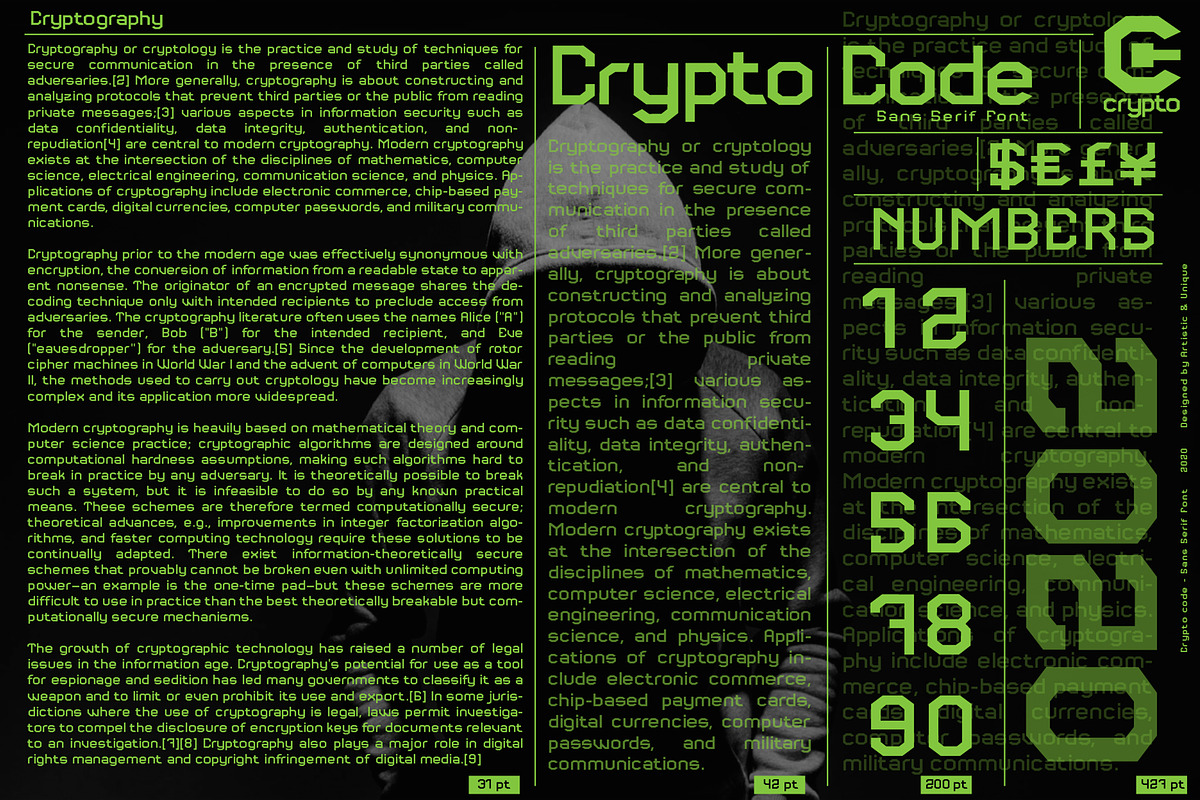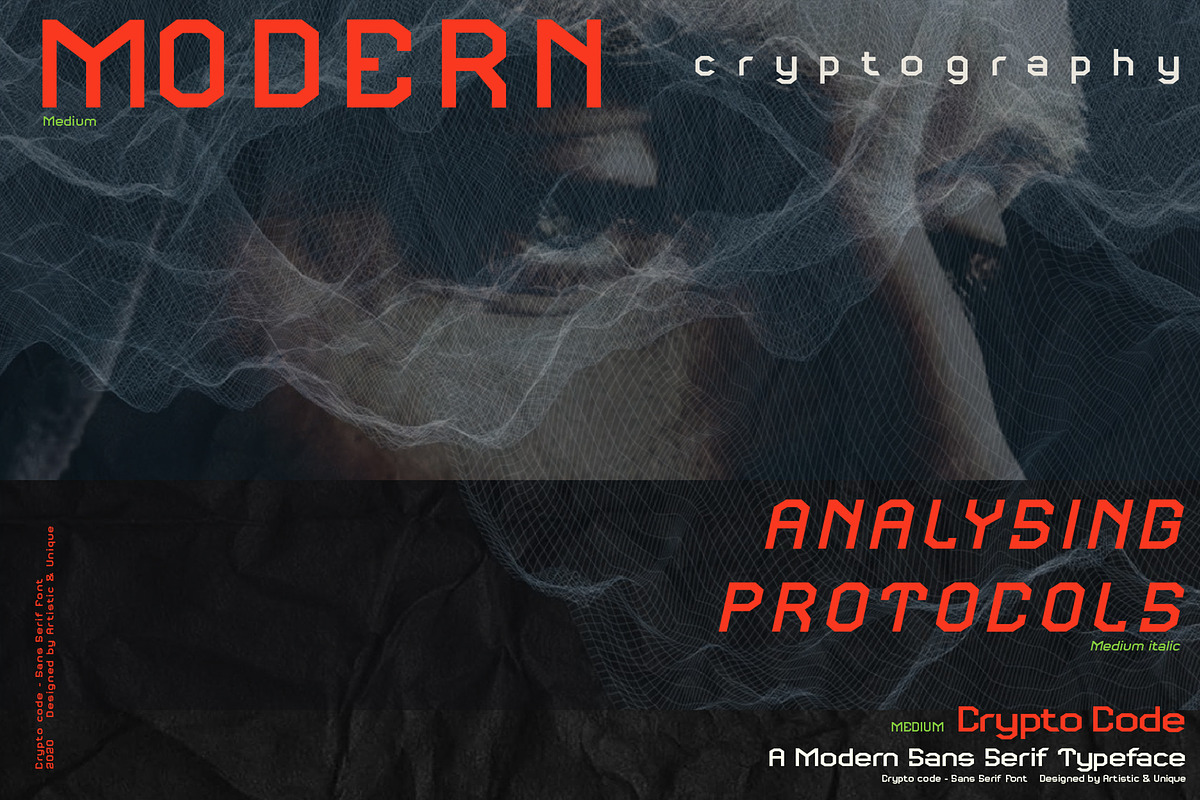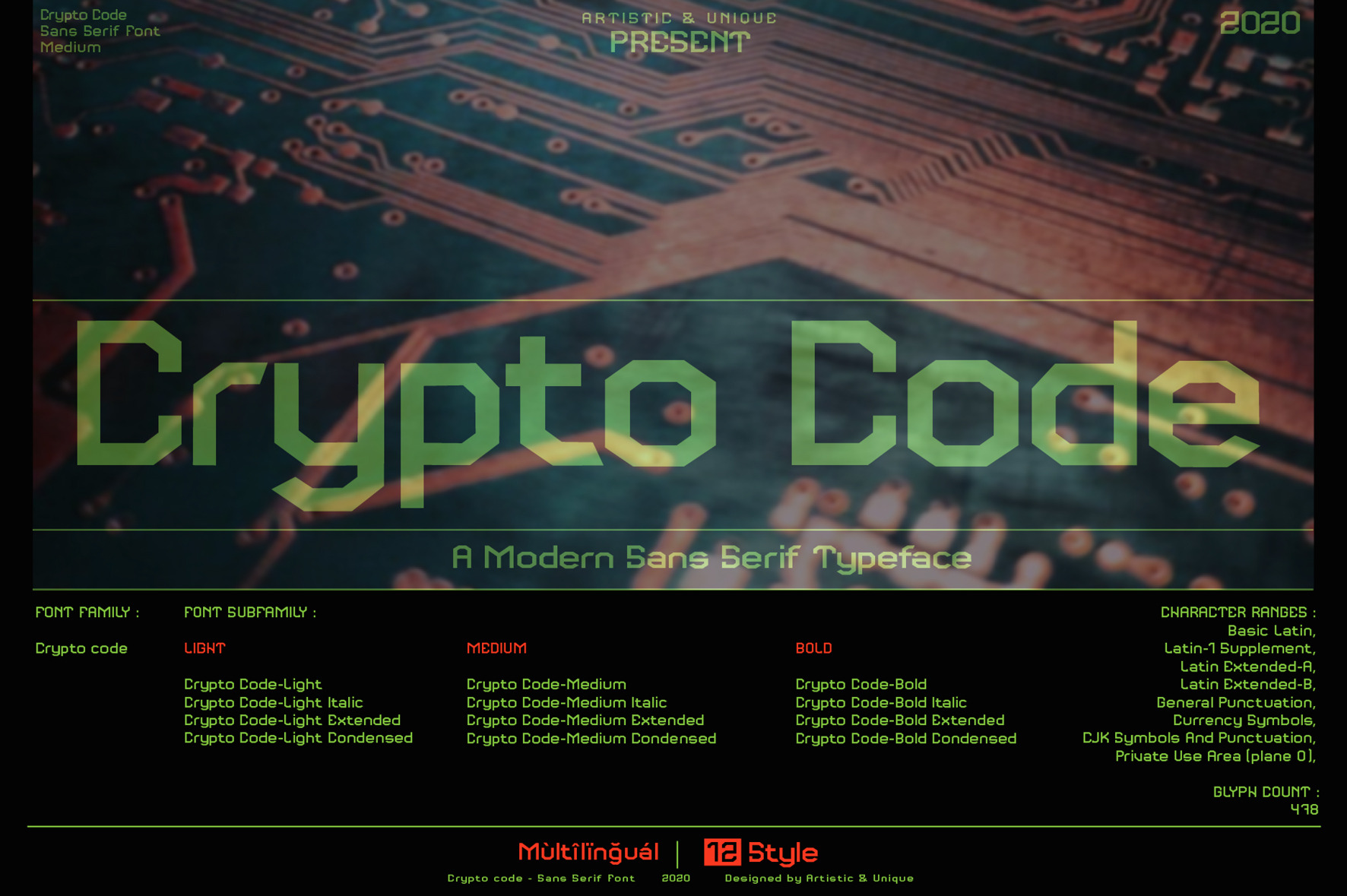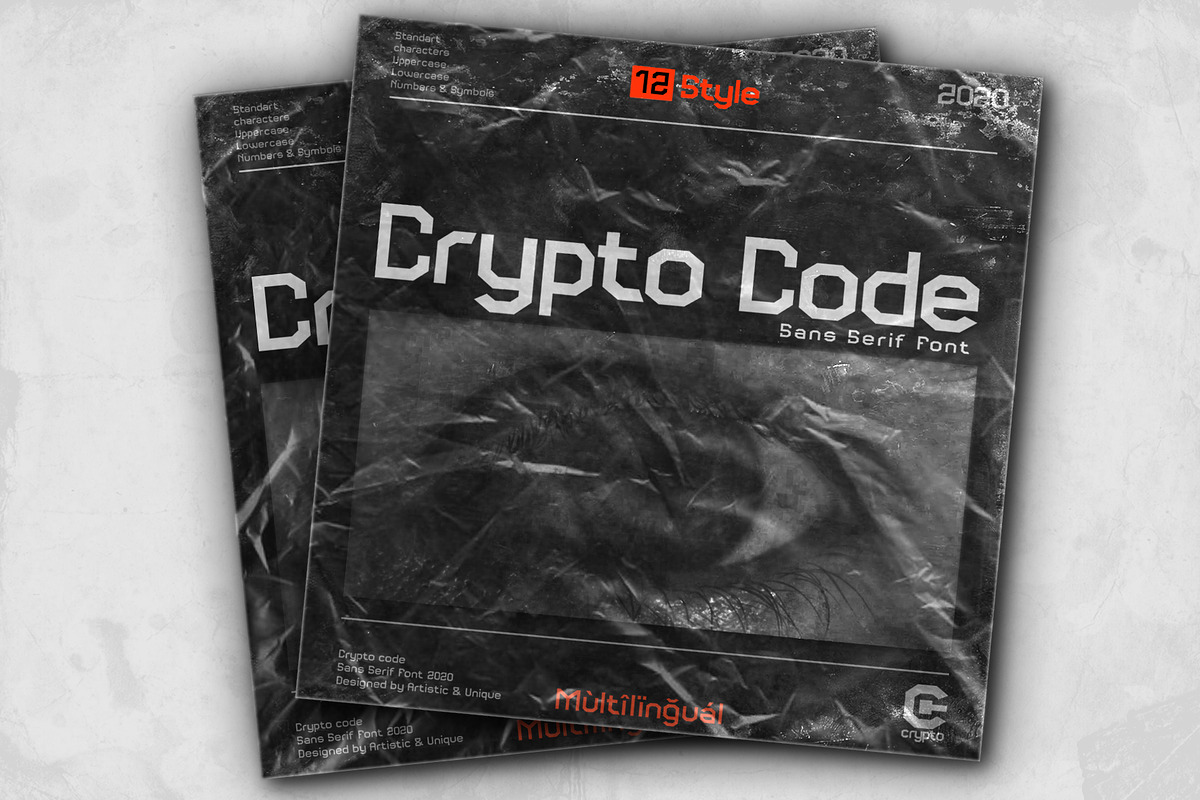
Crypto code - Sans Serif font family
Crypto code- Sans serif font family - Multilingual (2020) - 12 STYLE
Crypto code font, which creates its modern structure inspired by lines on electronic circuit boards, is a modern sans serif typeface.The futuristic theme article is perfect for title, space, electronics, computers, movie titles, magazines, branding, branding identity, posters, logo designs, packaging designs, websites - all digital platforms and high-end digital related project.
It has an ideal modern structure in your preferences for branding and identity creation in today's modern world.
This font can meet your needs in all modern and creative projects.